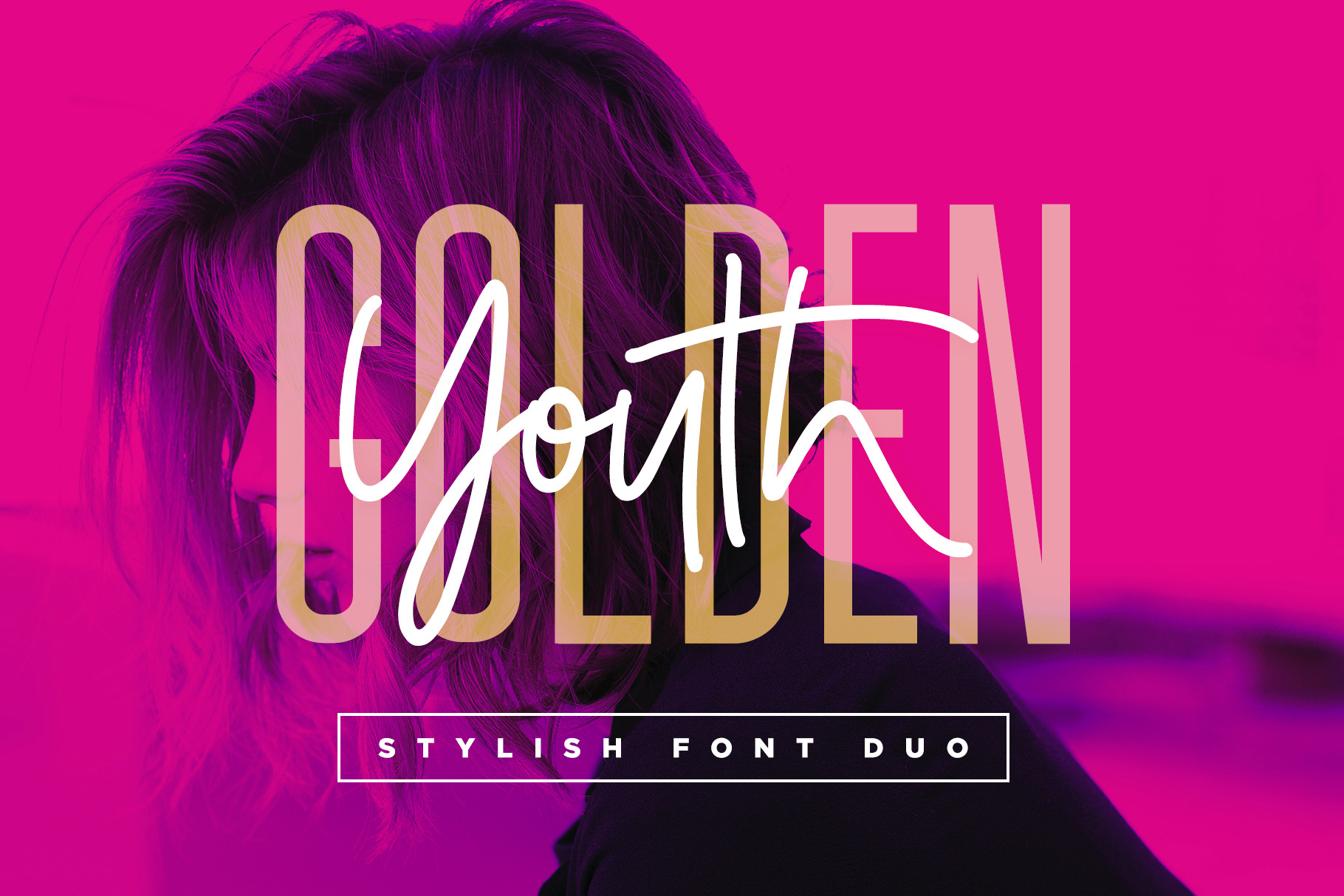
Golden Youth Font Duo
Introducing the Golden Youth Font Duo; A stylish & modern harmony of sans & script typefaces. With a tall condensed sans-serif font and a free-flowing script companion, Golden Youth offers beautiful contrasting typography for a diversity of design projects, including; logos & branding, packaging design, social media posts, advertisements & product designs.
1. Golden Youth Script • A clean, free-flowing, monoline script font containing upper & lowercase characters, numerals and a large range of punctuation.
2. Golden Youth Alt • This is a second version of Golden Youth Script, with a completely new set of upper & lowercase characters. If you wanted to avoid letters looking the same each time to recreate a custom-made style, or try a different word shape, simply switch to this font for an additional layout option.
3. Golden Youth Caps • A tall condensed sans-serif font containing uppercase only characters, numerals and a large range of punctuation. Creates a perfect pairing contrast with the Golden Youth Script fonts.
4. Golden Youth Extras • Simply type any A-Z uppercase character, or a-d lowercase character in this font to generate a ligature, if you are unable to access them with opentype software. (If you have opentype software, 'Discretionary Ligatures' can be turned on for the Script fonts, which will automatically switch standard letter pairs into the provided ligatures). Golden Youth Extras also contains several end-characters (type any e-l lowercase letter to generate) and swashes (type any m-p lowercase letter to generate).